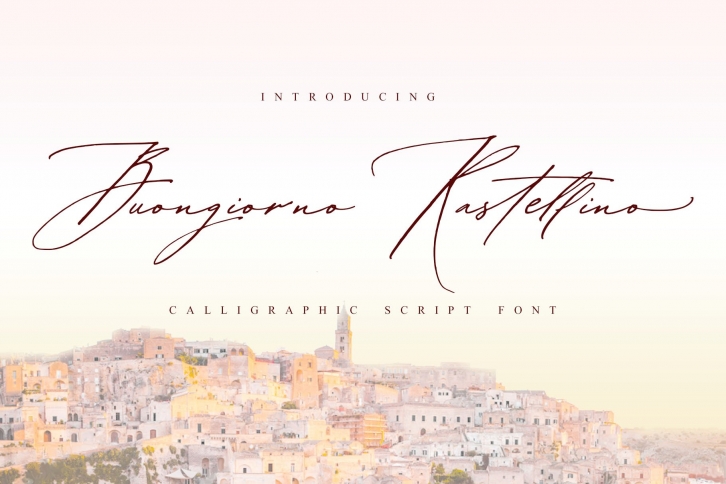
Buongiorno Rastellino is an elegant, feminine and graceful calligraphic handwritten script font with will be perfect for branding, logos, wedding stationery, social media, packaging, and other projects that require an elegant touch.
Buongiorno Rastellino script contains a full set of uppercase letters and 5 sets of lowercase letters, (standard, alternative, and initial, final form. To make a needed form just type a letter with a number such as a1, a2 ) and 46 ligatures - which can be used to create a handwritten calligraphy look.
FONT FEATURES:
- Contextual Alternates: Automatically adds contextual alternates for a more natural handwritten feel, in programs with Open type capability.
- Stylistic Alternates: 46 ligatures of double letters and extra stylistic alternates for lowercase characters
- Multilingual Support for 27 languages: Afrikaans, Albanian, Basque, Bosnian, Catalan, Danish, Dutch, English, Estonian, Faroese, Filipino, Finnish, French, Galician, Indonesian, Irish, Italian, Malay, Norwegian Bokmål, Portuguese, Slovenian, Spanish, Swahili, Swedish, Turkish, Welsh, Zulu
- character set: ÃÂÄÀÅÃÆÇÃÉÊËÈÃÃŽÃÌÑÓÔÖÒØÕŒÞÚÛÜÙẂŴẄẀÃŶŸỲ áâäà åãæçðéêëèÃîïìñóôöòøõœþßúûüùẃŵẅáºÃ½Å·Ã¿á»³ and more.